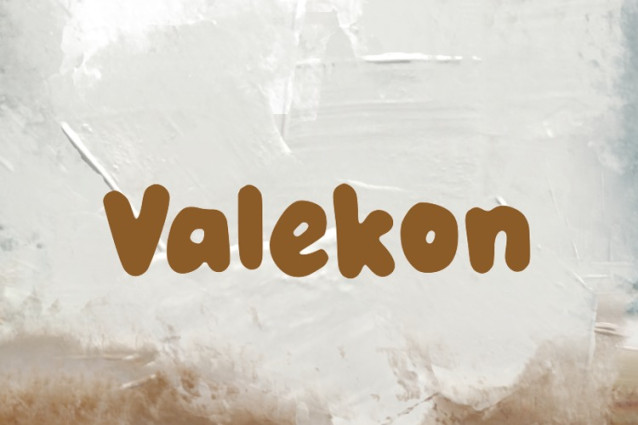
Valekon Playful Font
Valekon Playful Font is a chunky, comic, and cartoon display font. With its neat and joyful personality, this font will enhance any project you wish to create!